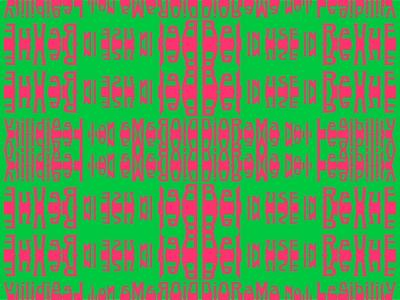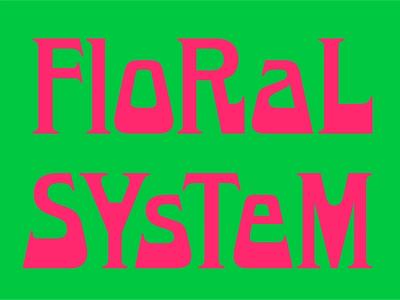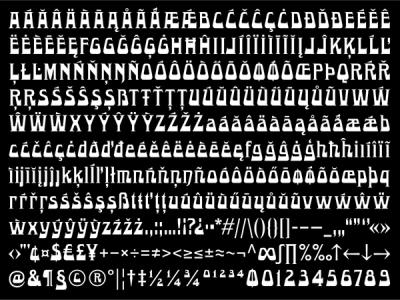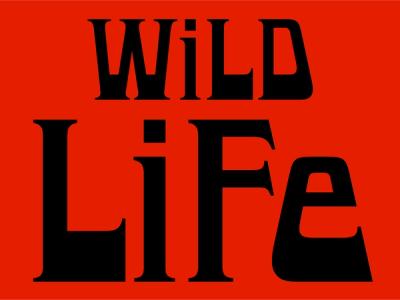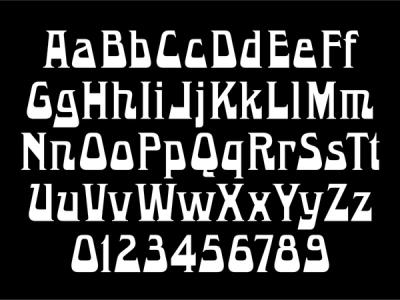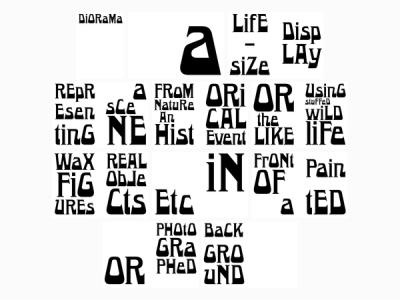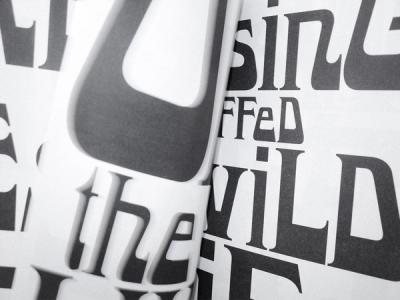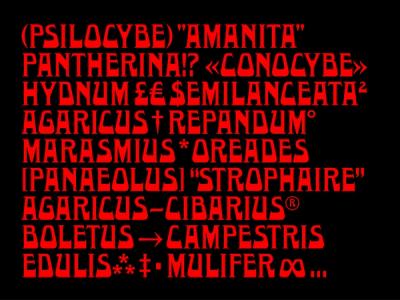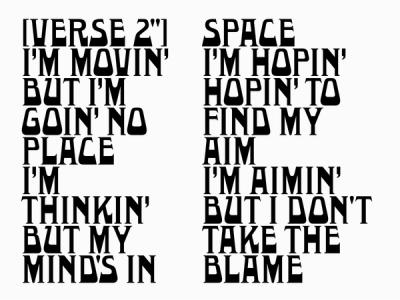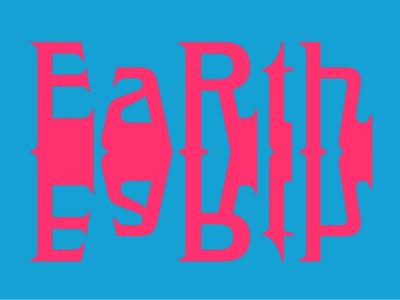
BET TYPEFACE
Bet typeface is drawn on the basis of three documents found at the Museum of Printing in Lyon from a specimen of wood-type letters for posters from the printing house Jacoby & Fils in Grenoble. It is a typeface with monstrous and misshapen gestures playing a stylistic hybridization of its time; the 19th century in Italy and some Art Nouveau tonalities. For the first issue of Revue Diorama, we chose Bet to compose the logotype and then introduce the definition of diorama on the opening pages as an organic and monumental typographic generic. Bet is available in one weight “Bold” for display type settings. The font covers Latin extended languages with more than 400 glyphs and includes the latest open type functionalities, with several alternates. With its bold proportions, Bet is a perfect typeface for identity projects and titling design. We invite you to play between uppercase and lowercase within words to design a singular silhouette to your texts.
BET TYPEFACE Details
• Design
Guillaume Sbalchiero, 2017-2021
• Font Development
Martin Violette
• First Apparition
Revue Diorama No.1, Legibility
Alternates
CcGPjtm